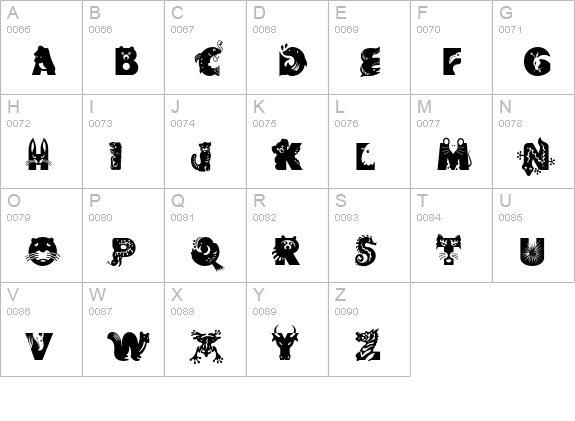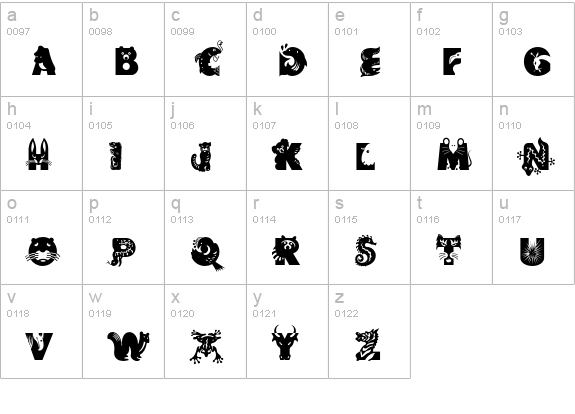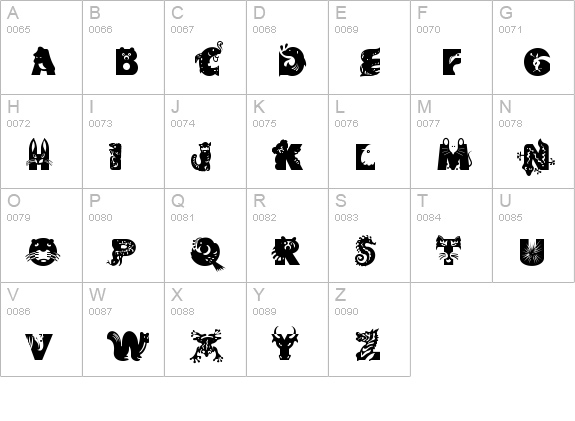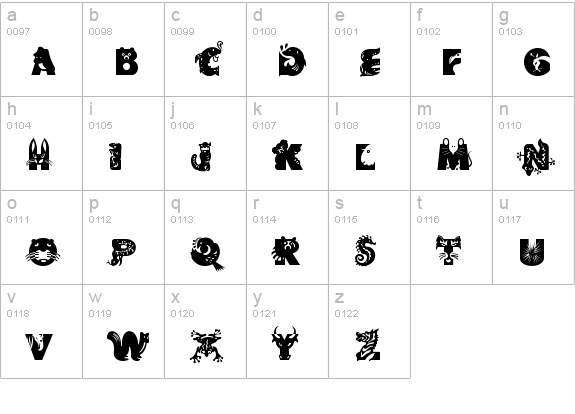
Critter Std Font Details
Critter Std is a charming and playful font that exudes a sense of whimsy and creativity. With its quirky and distinctive characters, this font is perfect for adding a touch of fun to any project. Whether you're designing a poster, creating a logo, or crafting a greeting card, Critter Std is sure to make your text stand out in a delightful way. The best part? Critter Std is available for free download at FontsMarket.com. This means you can easily access this unique font and start using it in your designs without any cost. Don't miss out on the opportunity to add a touch of personality and charm to your projects with Critter Std. Download it today and let your creativity run wild!